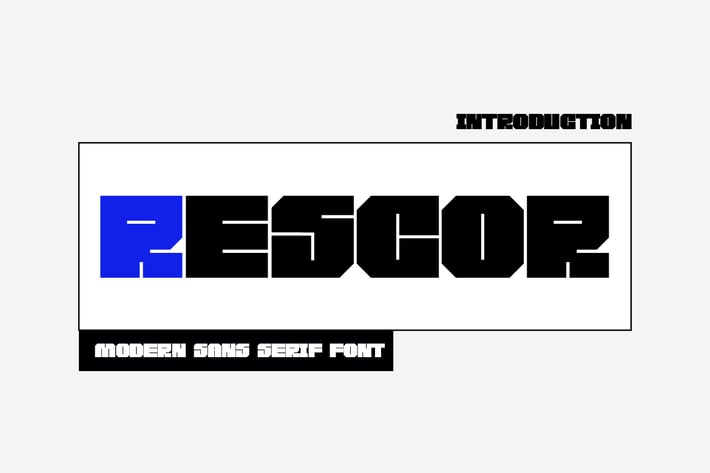
Rescor - Heavy Bold Font
Rescor - Heavy Bold Font is unique . Ready to use for your design like labeling, movie sceen, poster, movie title, gigs, album covers, logos, and much more.